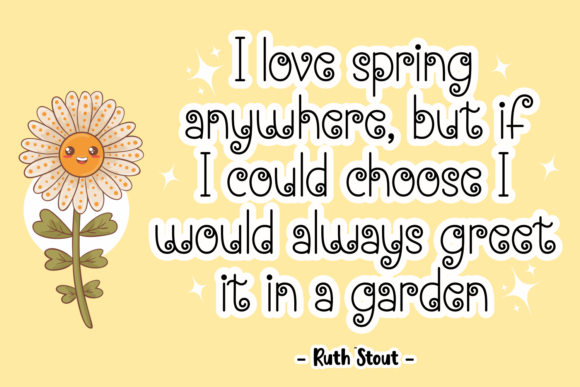
Springkle Opening Font
db-ku.com - Script & Handwritten -- Springkle Opening is a curly handwritten font that will take the boredom out of your life! It looks fun and exciting, and its slim characters will make everything look better!